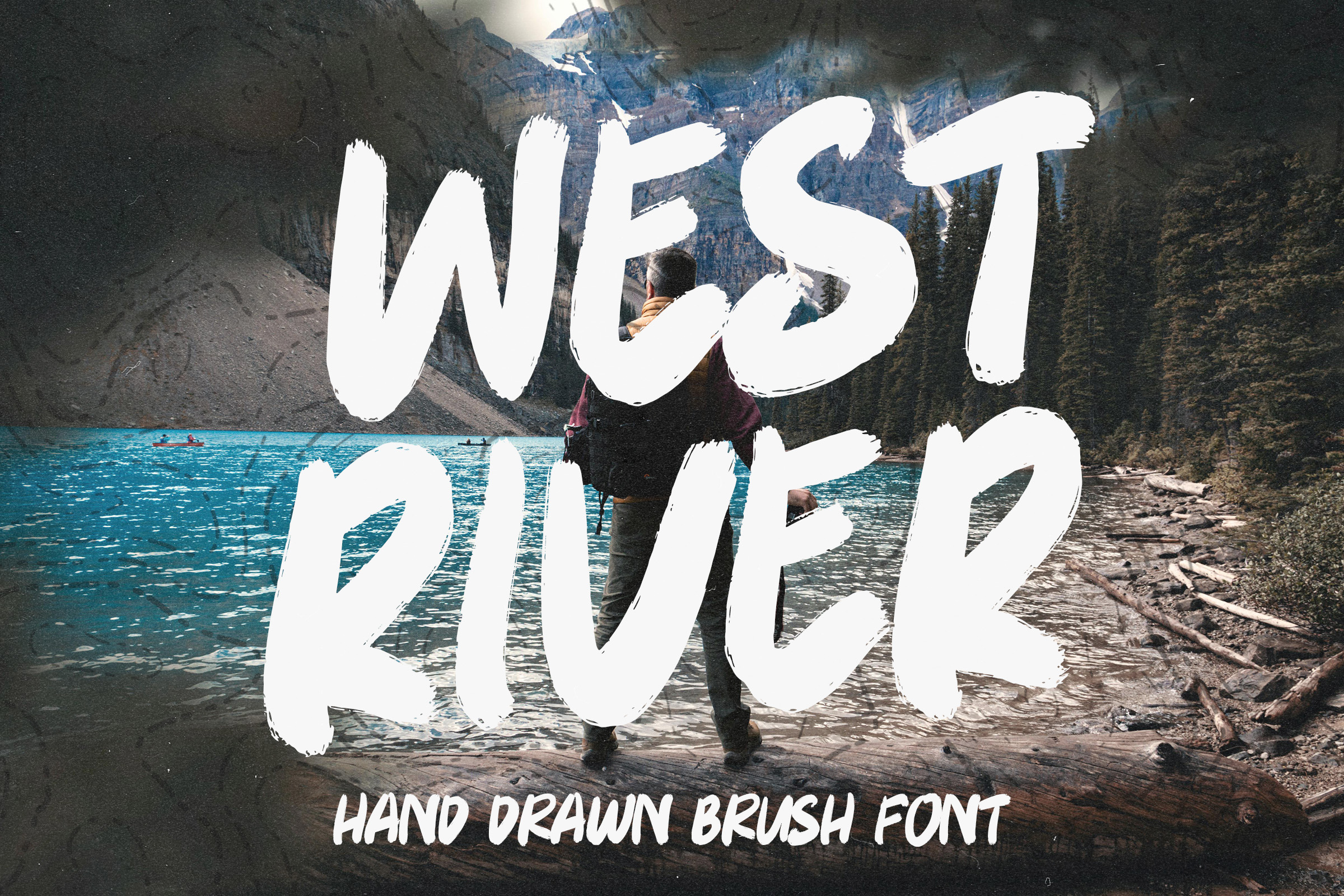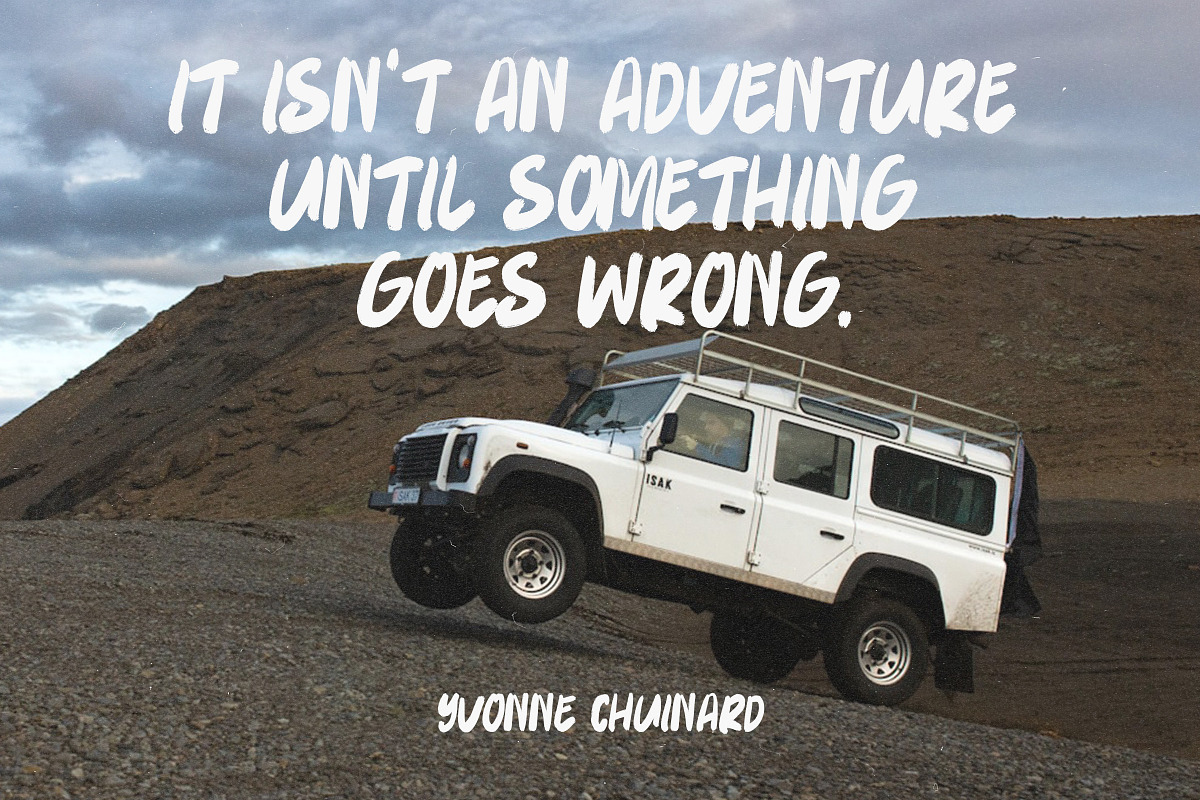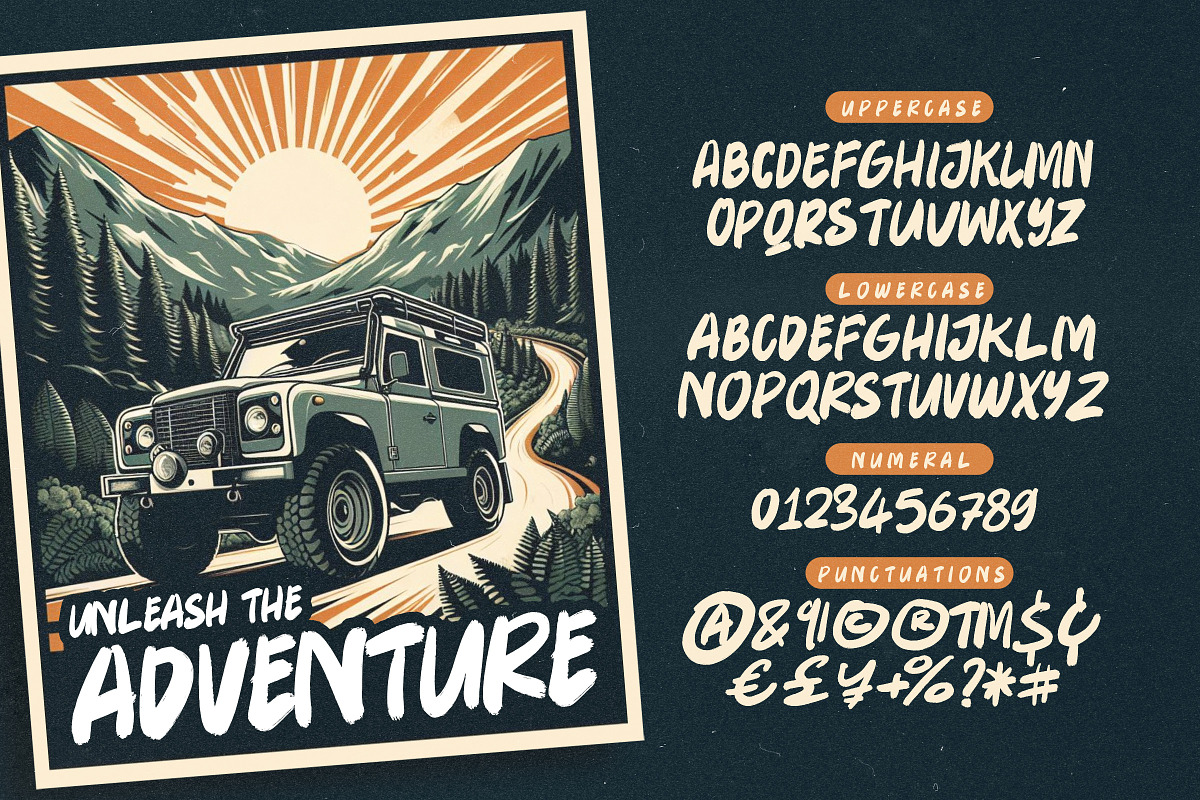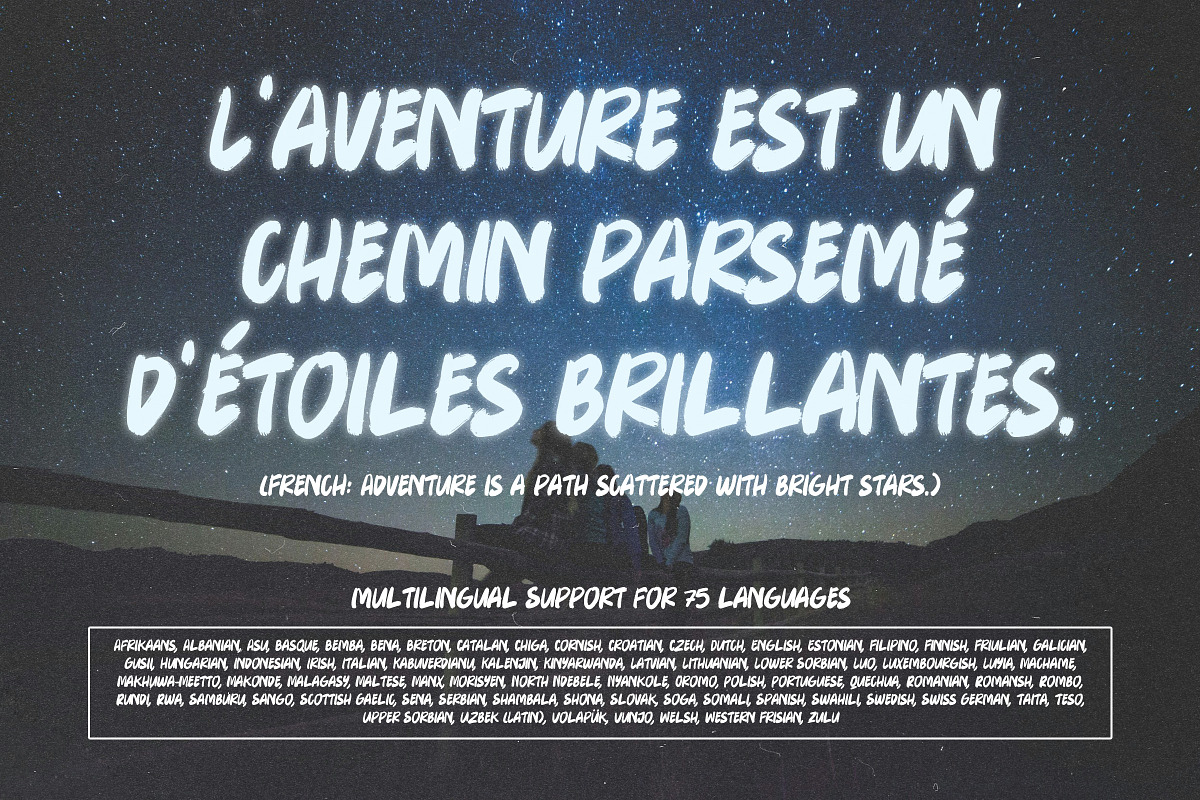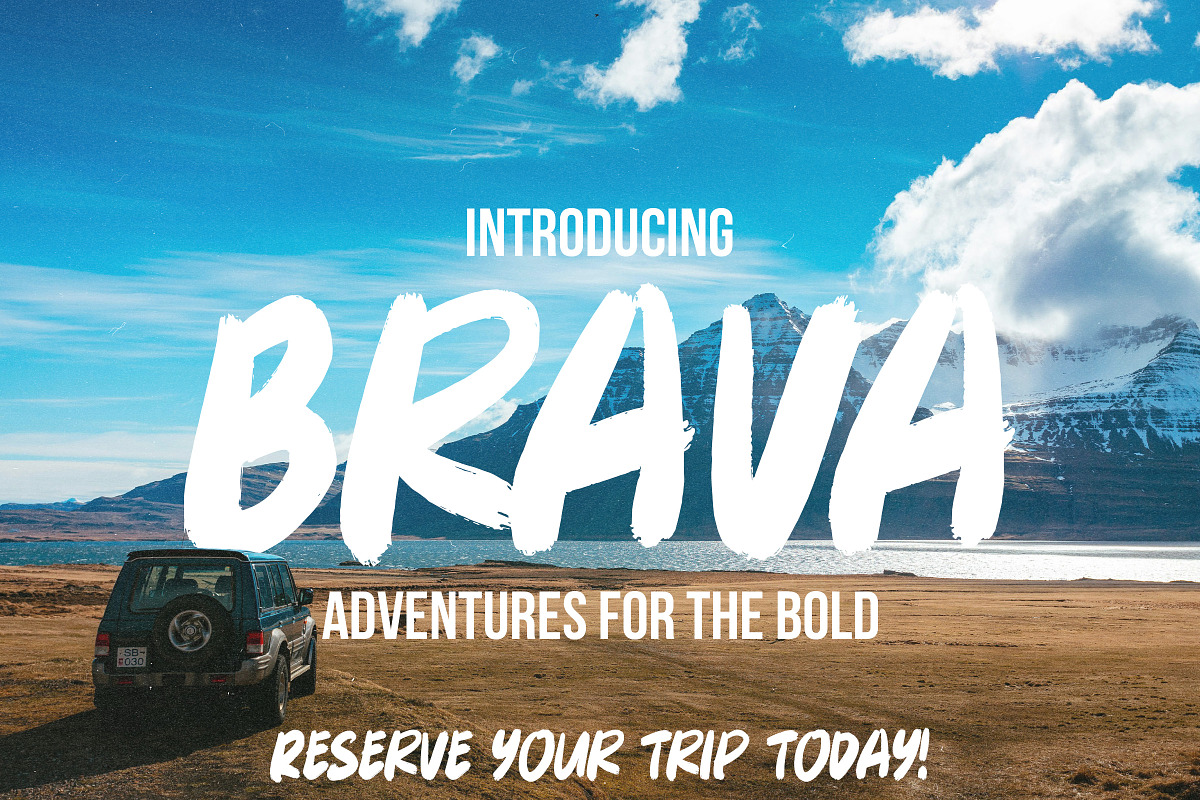
West River - Bold Brush Font
Introducing West River, an adventurous hand drawn brush font that's as bold as your next expedition.
With rugged strokes and a fearless style, it adds a daring edge to your designs. Whether you're crafting outdoor ad campaigns, exploring logo concepts, or blazing trails with new apparel designs West River brings an adventurous spirit to every project.
Let your creativity roam free with the bold and adventurous charm of West River